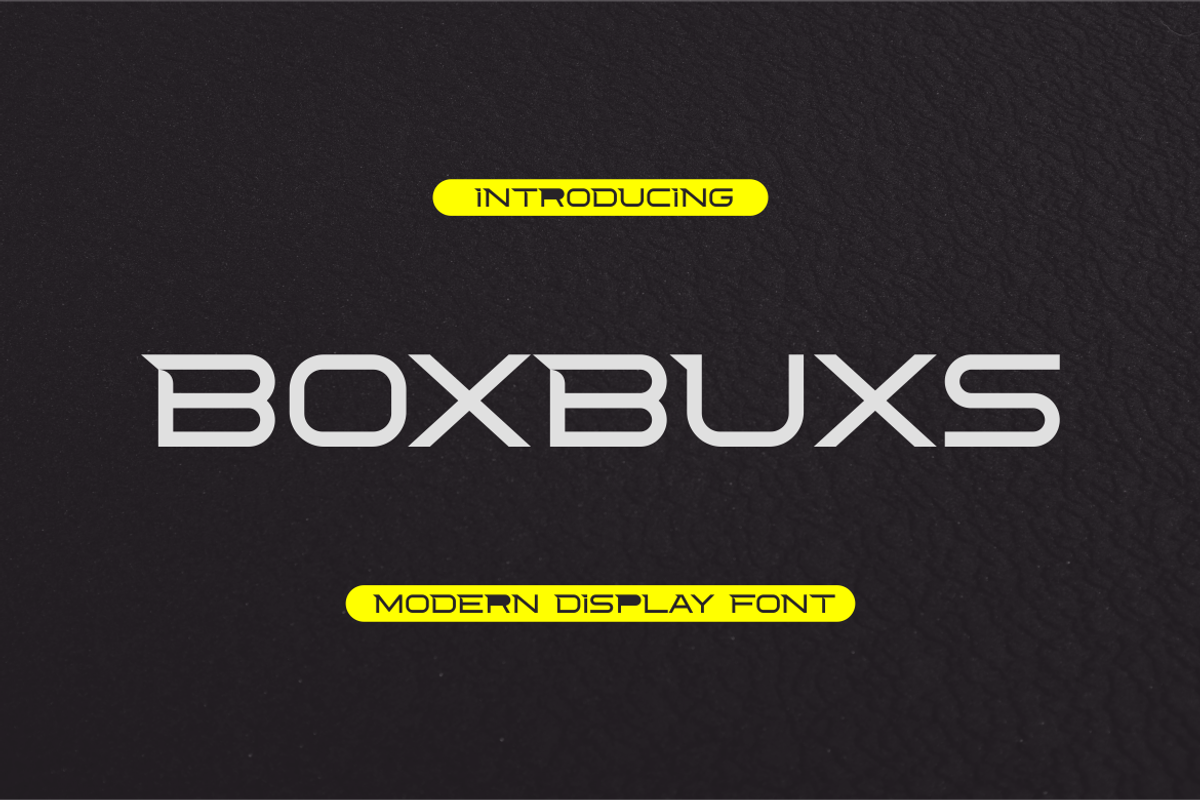
Boxbuxs Font Free Download is a bold and stylish display typeface with a geometric, tech-inspired twist. Its clean lines and blocky structure make it ideal for branding, modern packaging, digital content, urban posters, and logo designs that need a confident and futuristic edge.
Perfect for creators who want to make a solid visual impact, Boxbuxs balances readability with bold personality. Whether you're working on a gaming brand, tech product, or streetwear campaign, this font delivers clarity and strength. Boxbuxs Font Free Download allows you to explore its powerful style in personal projects before purchasing a commercial license.
Think outside the box with Boxbuxs — a bold font that’s made to stand out and make a statement.